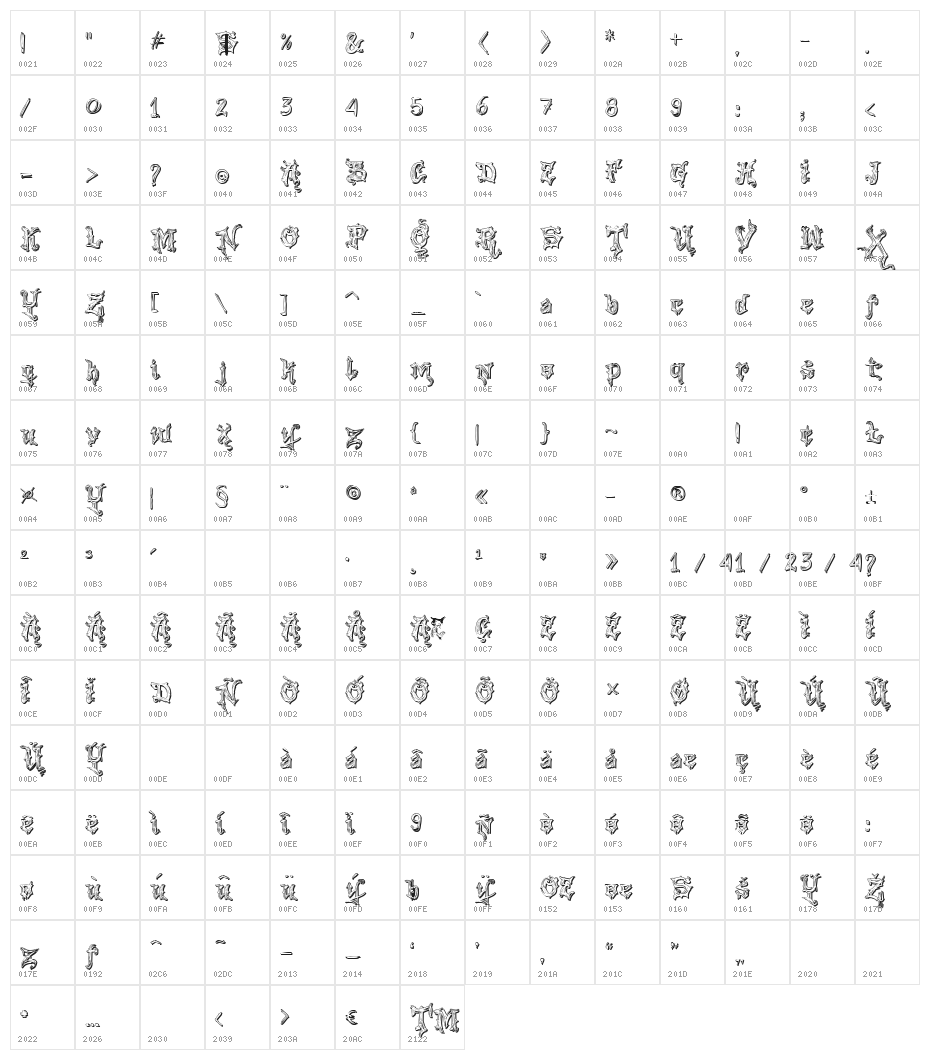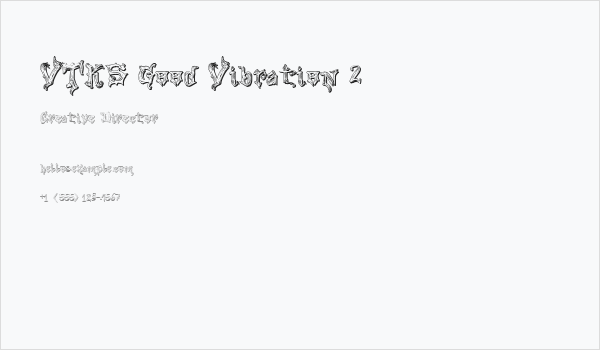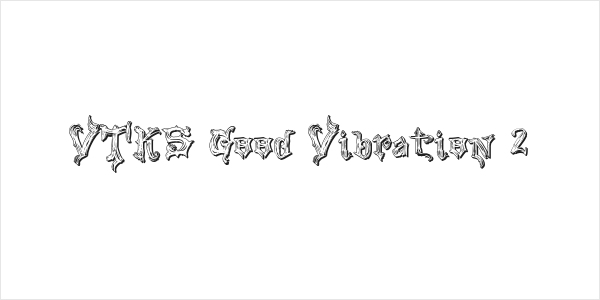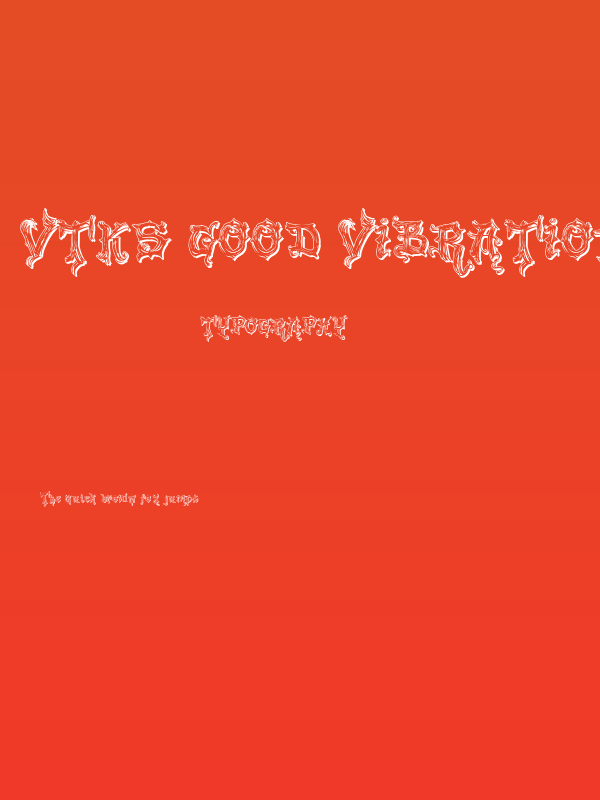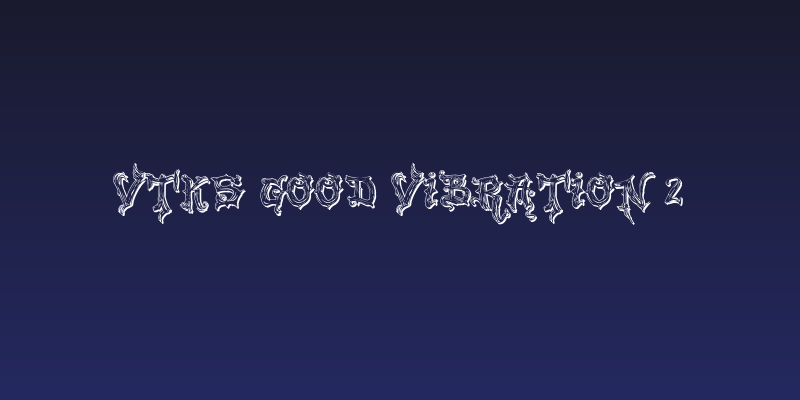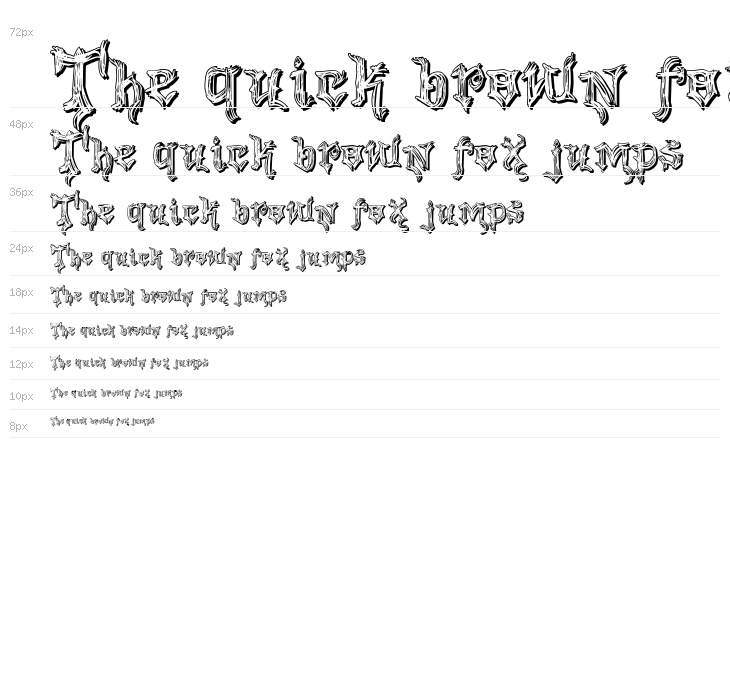
VTKS Good Vibration 2 Font
VTKS Good Vibration 2 Description
This font features a highly decorative and intricate design, characterized by bold, elaborate strokes and a vintage flair. The letters are adorned with ornate details, giving them a dynamic and artistic appearance. The uppercase and lowercase letters maintain a consistent style, with each character exhibiting unique embellishments that add to the overall aesthetic. The numbers and special characters follow the same ornate theme, ensuring a cohesive look throughout. This font is ideal for projects that require a touch of elegance and creativity, making it suitable for artistic and expressive designs.
| Overall Style | Vintage, Decorative |
| Use Case | Headlines, Logos, Artistic designs |
| Proposed Projects | Ideal for posters, album covers, event invitations, and artistic branding projects. |